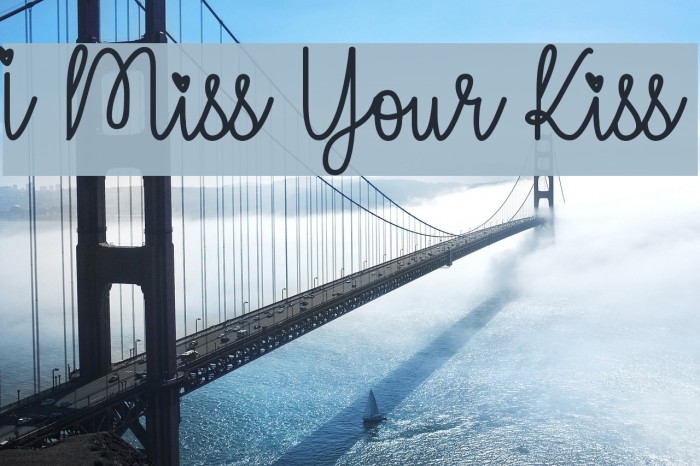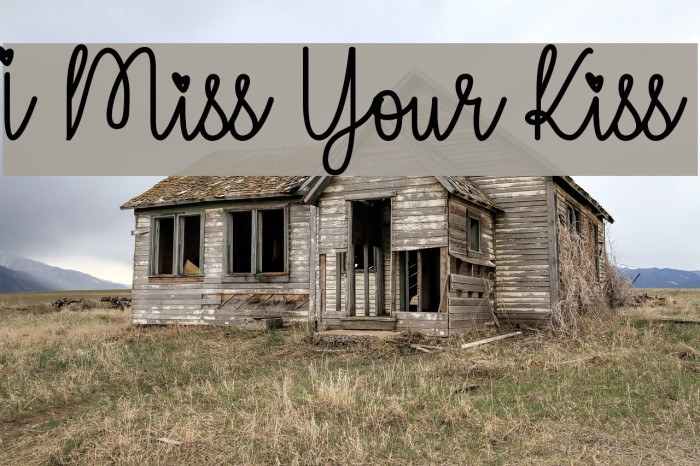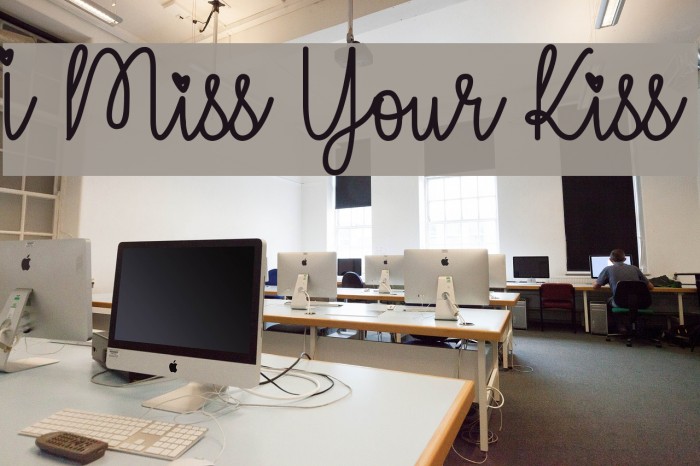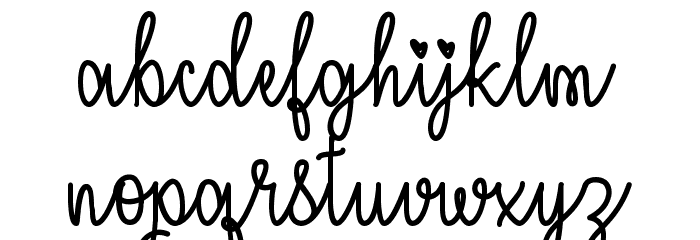
I Miss Your Kiss Font
This playful and whimsical font features a handwritten style with a touch of romance. The letters are connected in a flowing script, with charming heart accents on certain characters, adding a unique and personal touch. The strokes are smooth and consistent, creating a harmonious and elegant appearance. The numbers and special characters maintain the same playful style, making it versatile for various design needs. The overall look is both casual and sophisticated, perfect for adding a personal and heartfelt touch to any project.
A playful handwritten script with heart accents and smooth, flowing strokes.
• Proposed Projects: Ideal for wedding invitations, romantic greeting cards, personal branding, and social media graphics.
• Overall Style: Romantic, Playful
• Use Case: Logos, Invitations, Greeting Cards